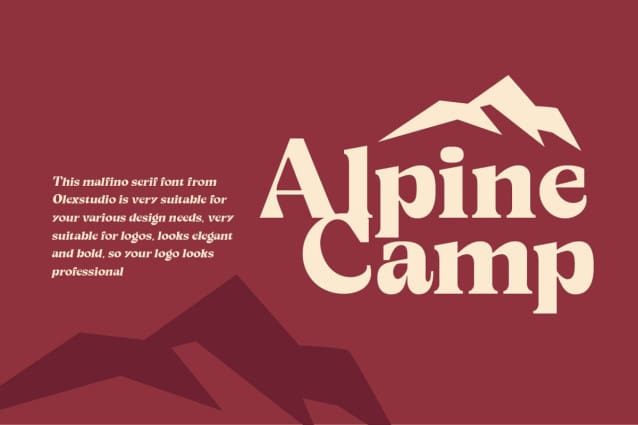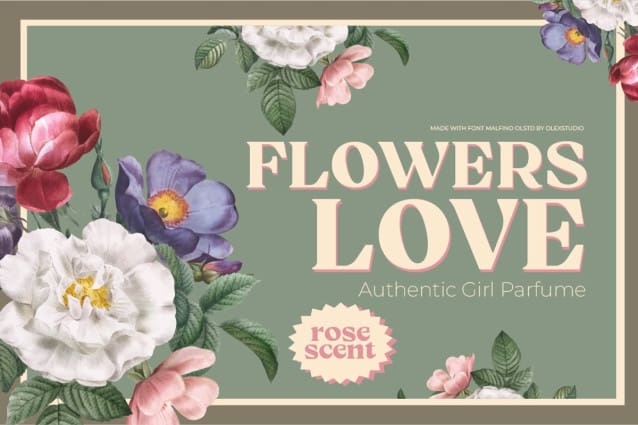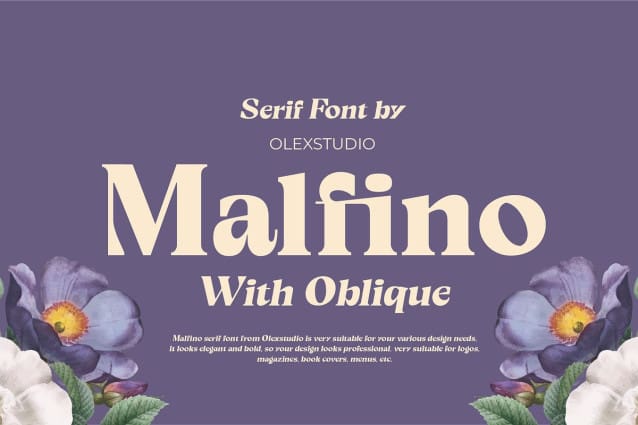
Malfino Font
Malfino Font will look gorgeous on all your designs, invitation, poster design, book design, branding materials, logo’s, and all project design other.